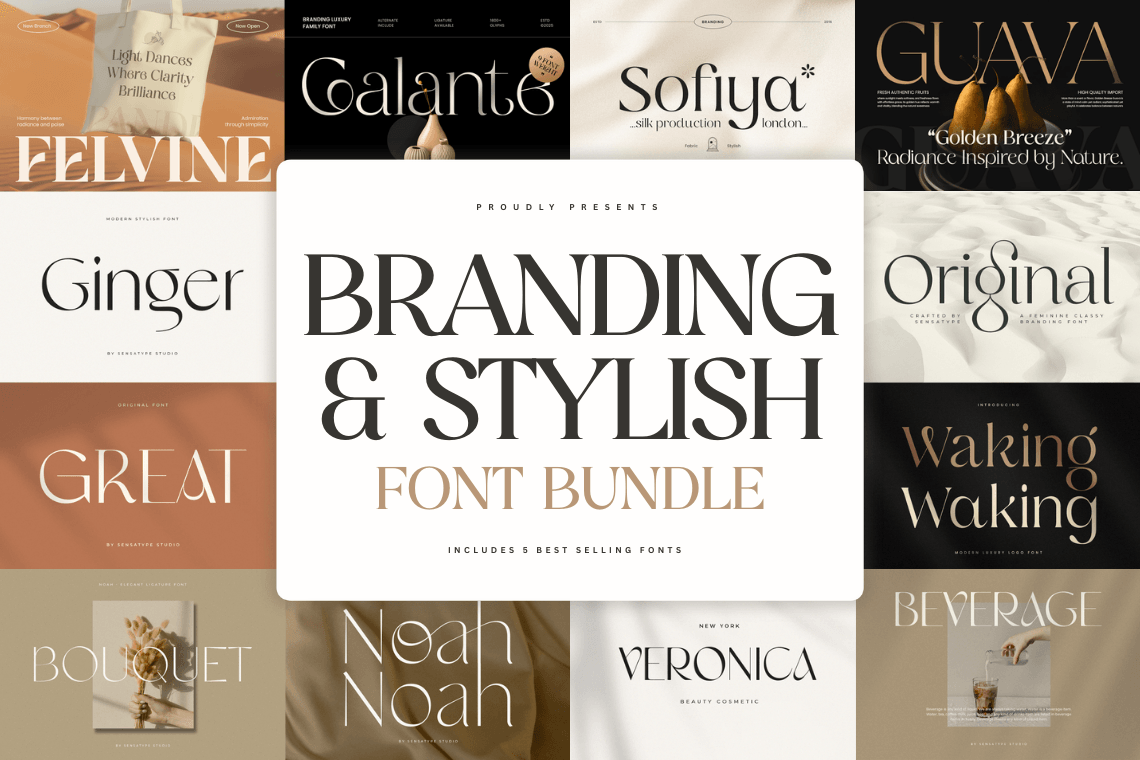
Branding & Stylish Modern Font Bundle
A versatile modern font collection for clean branding, bold headlines, and stylish layouts.
BRANDING & STYLISH is a modern font bundle crafted for designers who need flexible, professional typography with a clean, contemporary feel. From sharp minimal forms to bold display personalities, this collection is built to keep your visuals consistent, stylish, and market-ready.
Perfect for brand identity, logos, packaging, posters, headlines, website UI, social media campaigns, and print collateral, this bundle helps you build strong typographic hierarchy across many project types—fast.
Whether you’re working for agencies, startups, lifestyle brands, or modern editorial layouts, this bundle brings a polished, on-trend look that elevates your design system and makes every message feel intentional.
BRANDING & STYLISH – Modern bundle Features
Curated modern font bundle for branding and stylish design systems
Great for logos, brand identity, packaging, and product labels
Strong headline impact for posters, covers, and editorial layouts
Clean readability for UI/UX, web, and social media graphics
Works beautifully in both digital and print projects
OpenType features for creative flexibility
Ideal for modern business, fashion, beauty, and creative branding
Easy to pair across layouts for consistent typography
- Uppercase & Lowercase
- Number & Punctuation
- Opentype Features
- PUA Encode
- Multilingual Language
- Alternate Characters
- Ligature Collections